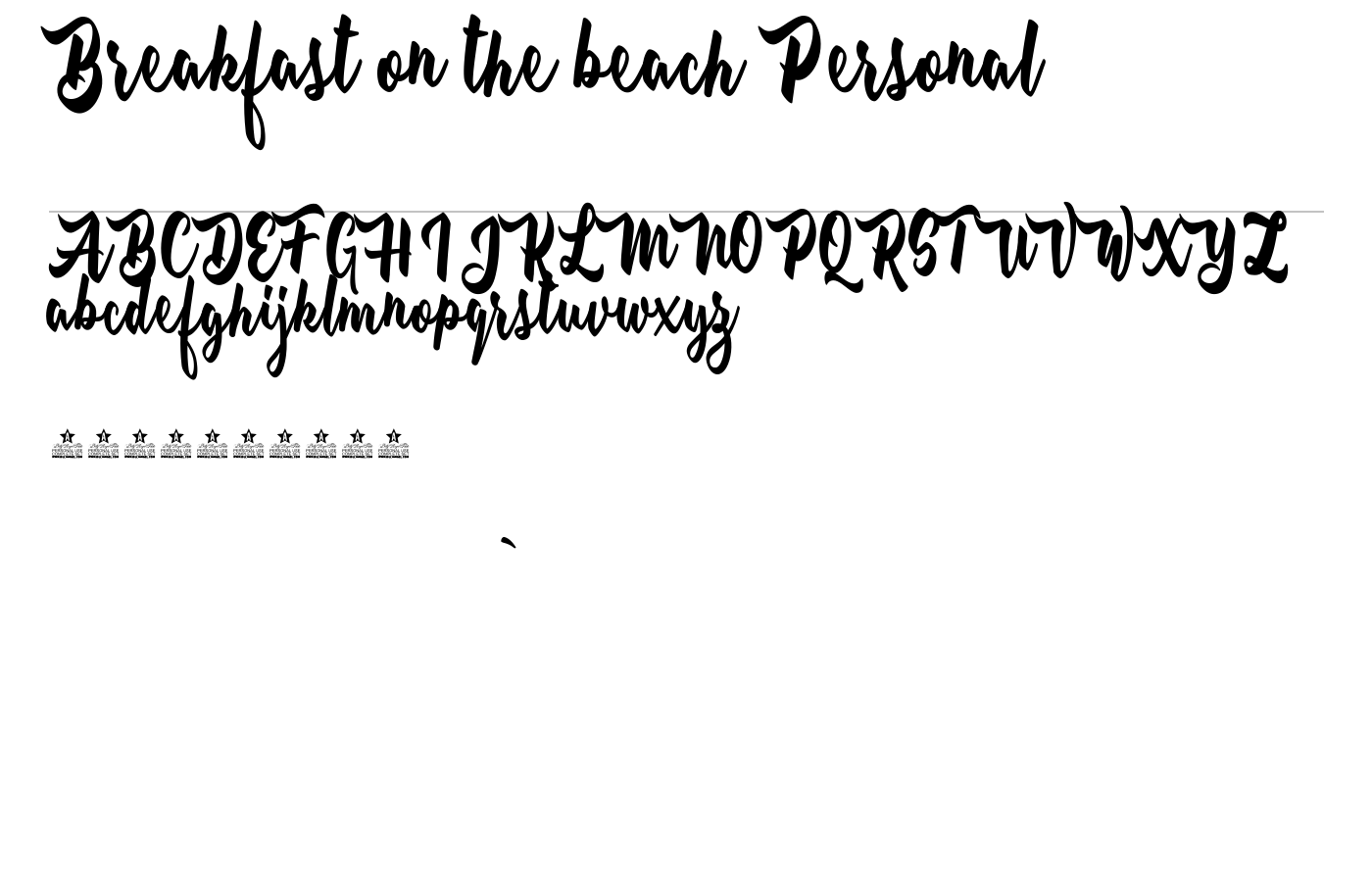
Breakfast on the beach Personal is a lively and expressive script font that combines bold, brush-like strokes with a fluid, hand-lettered style. Its dynamic curves and thick-to-thin contrast give it a playful yet confident personality, making it perfect for creative branding, invitations, and casual headlines that need a personal, artistic touch.
Breakfast on the beach Personal Font
About Breakfast on the beach Personal Font
| Font family | Breakfast on the beach Personal Font |